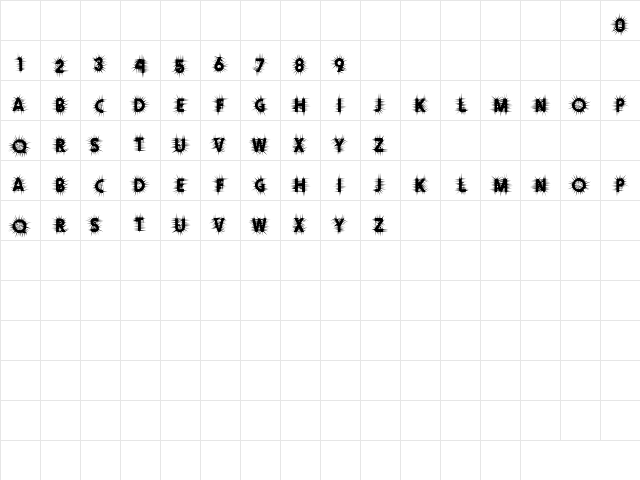
Thorn Regular
| Foundry | TBJ |
| Designer | TBJ |
Design Context for Thorn Typeface
Thorn is a composed and adaptable typeface that performs quietly and consistently across a wide range of design contexts.